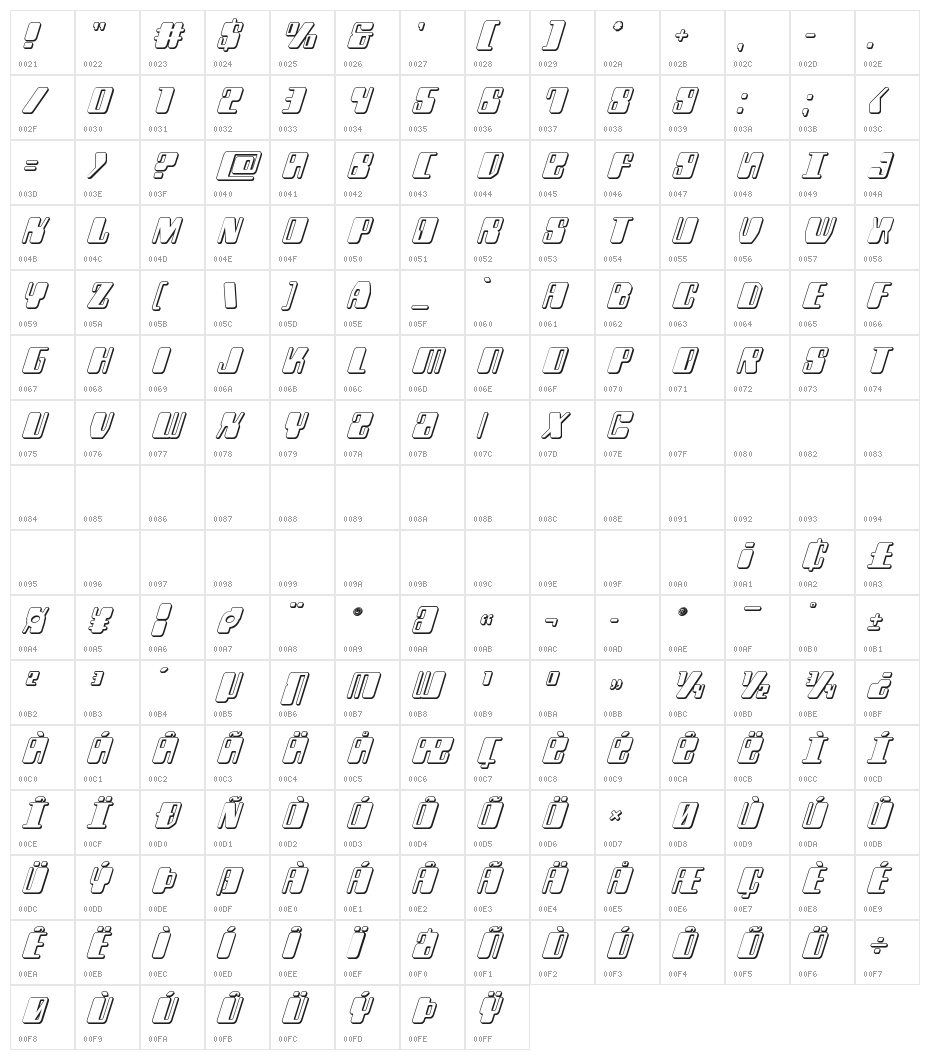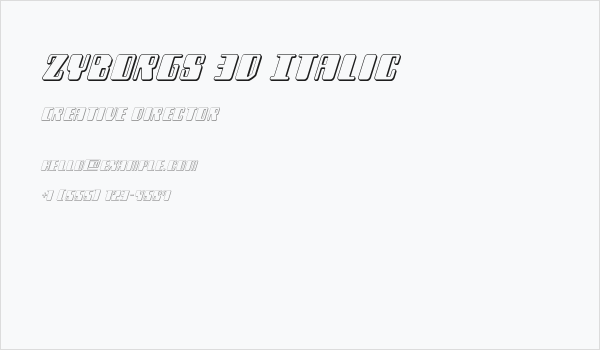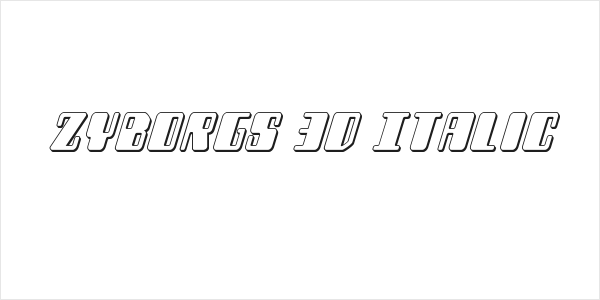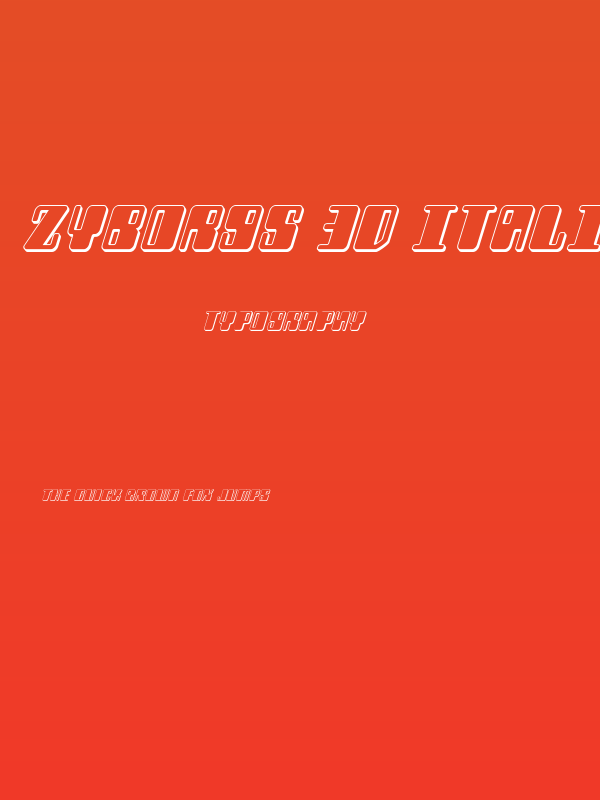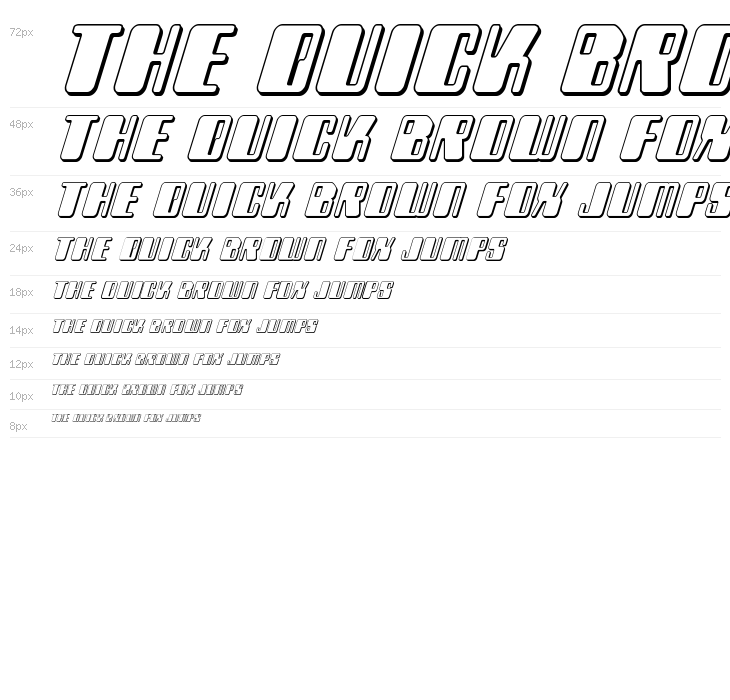
Zyborgs 3D Italic Font
Zyborgs 3D Italic Description
This font features a bold, futuristic design with a three-dimensional effect that gives it a dynamic and eye-catching appearance. The letters are outlined with a shadow that creates a sense of depth, making them appear as if they are popping off the page. The italic slant adds a sense of motion and speed, enhancing its modern aesthetic. Each character is distinct, with clean lines and a geometric structure that maintains readability while offering a unique style. The font includes a full set of uppercase and lowercase letters, numbers, and a variety of special characters, making it versatile for various design needs.
| Proposed Projects | Ideal for sci-fi themed projects, video game titles, tech branding, and futuristic posters. |